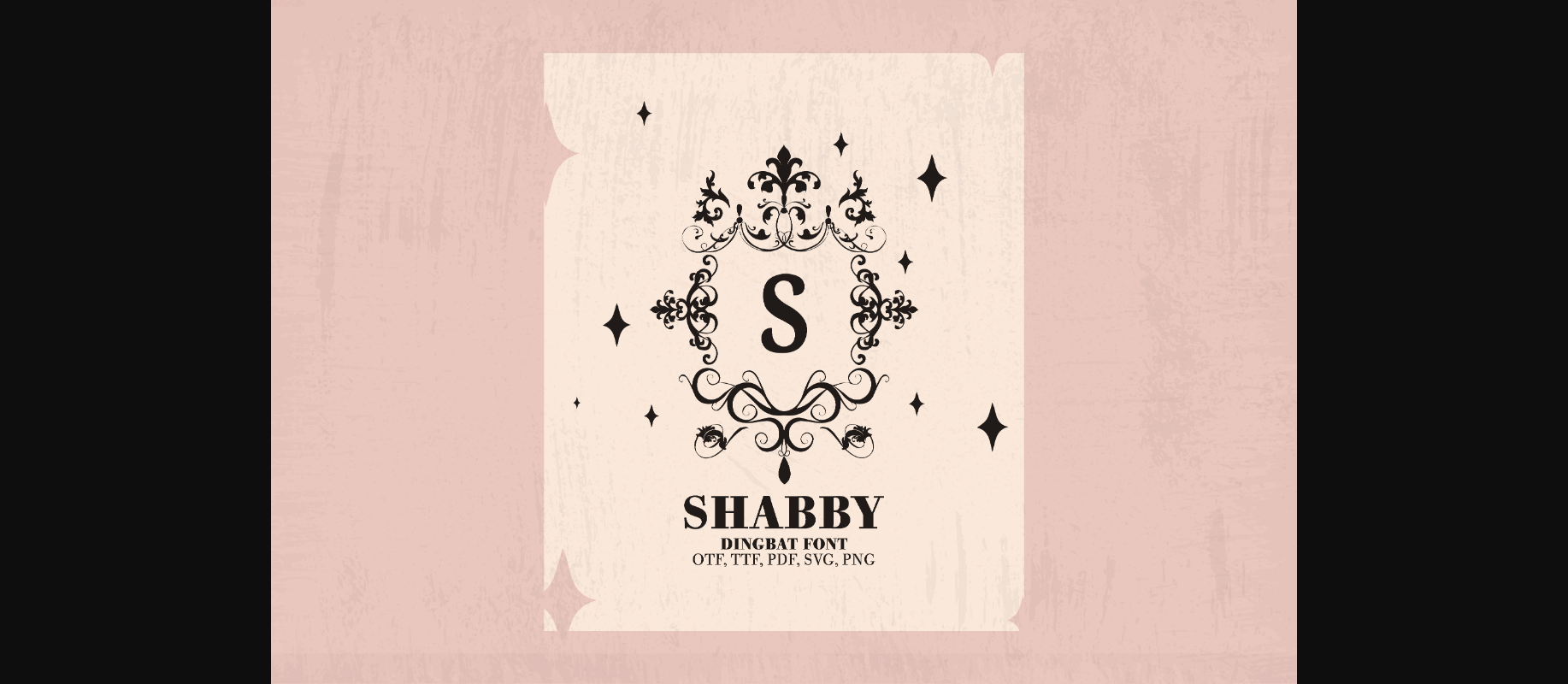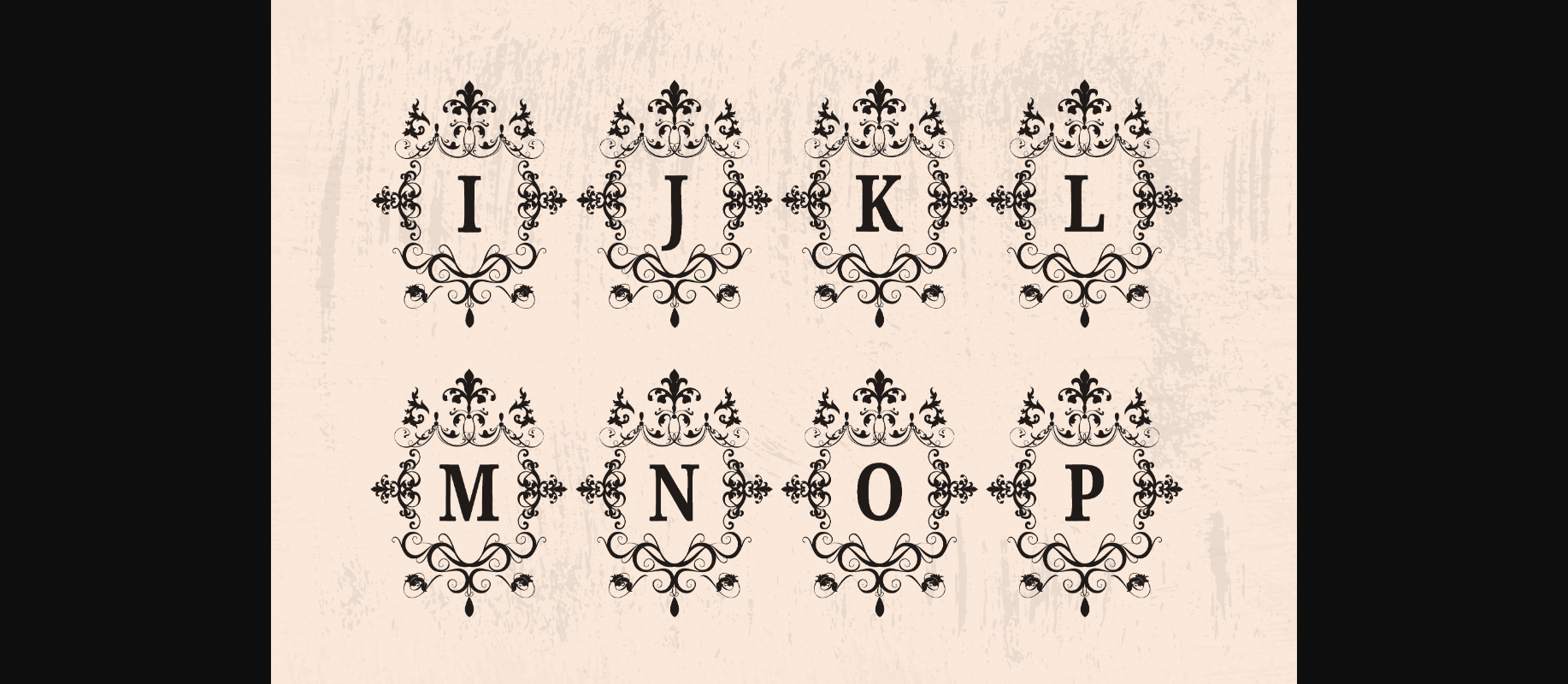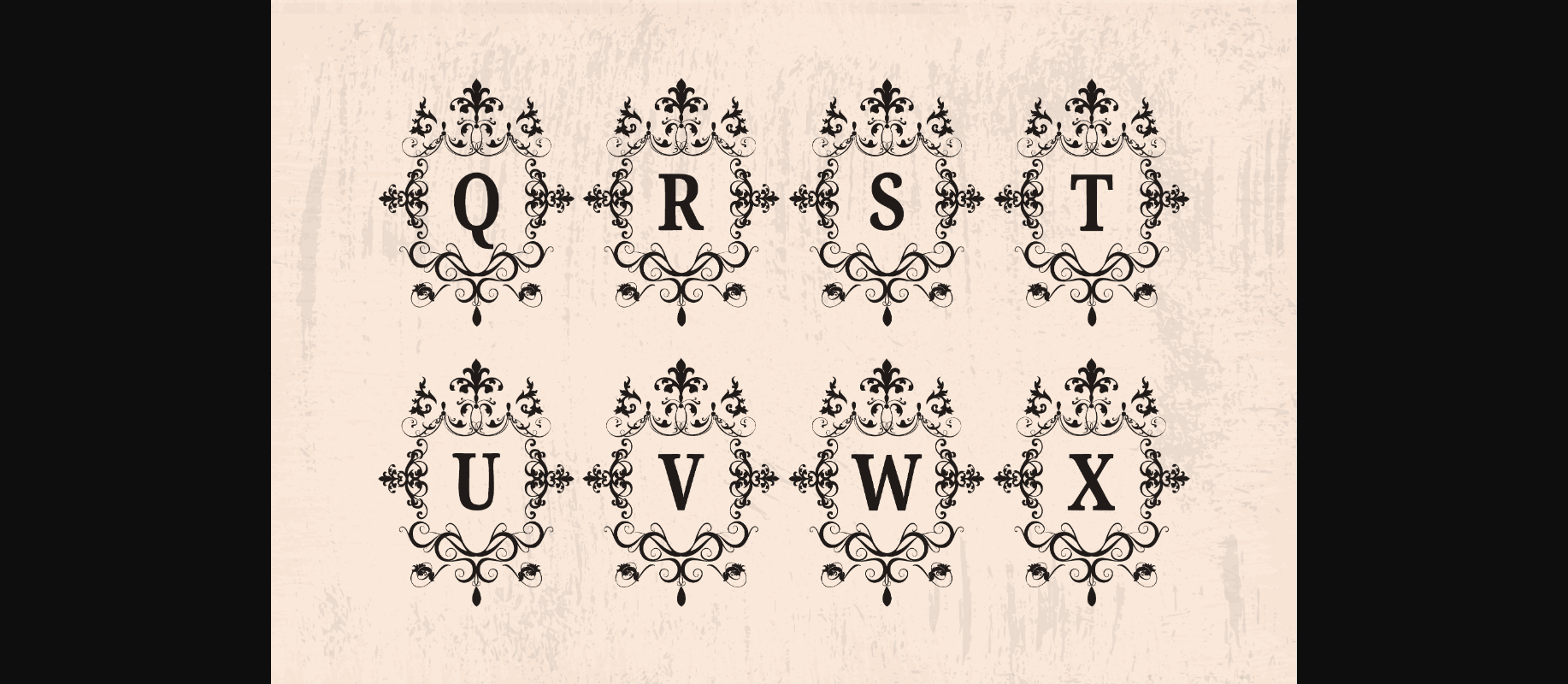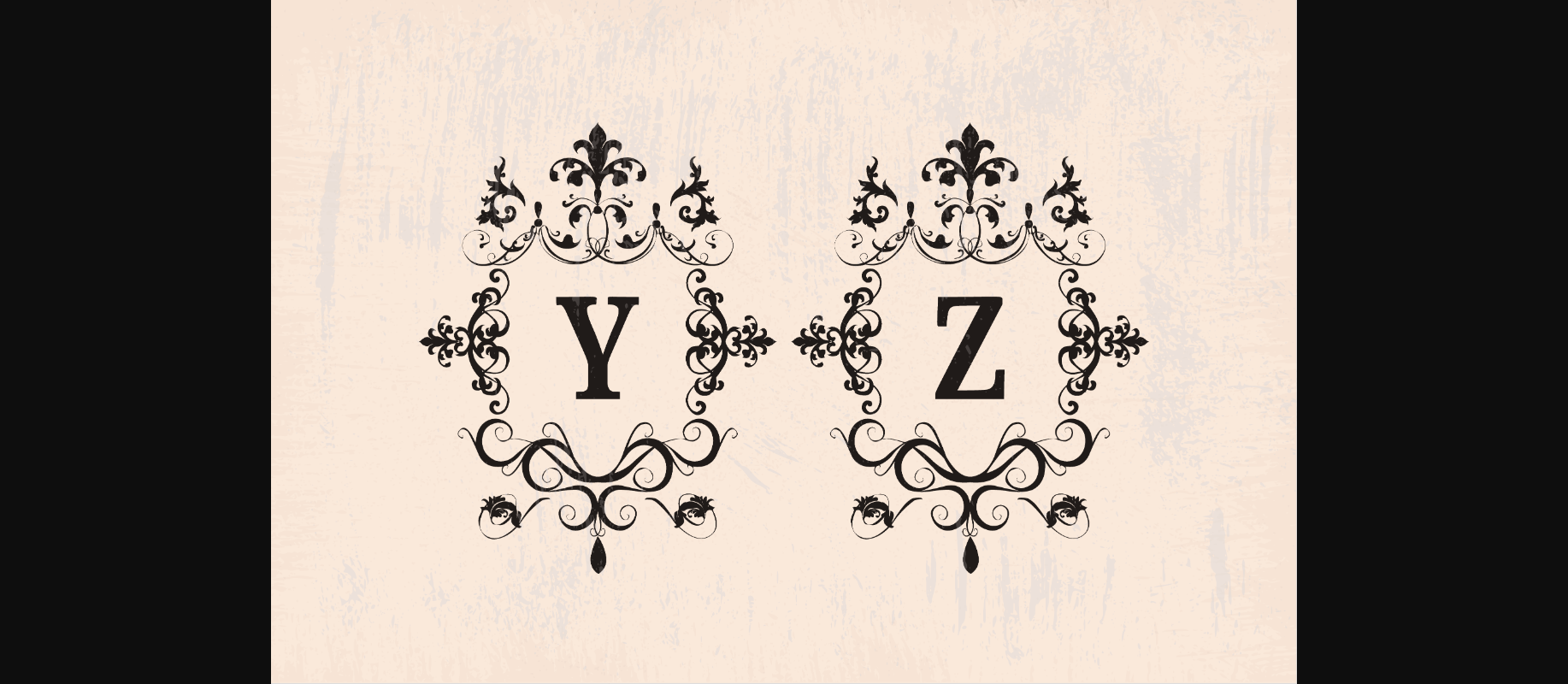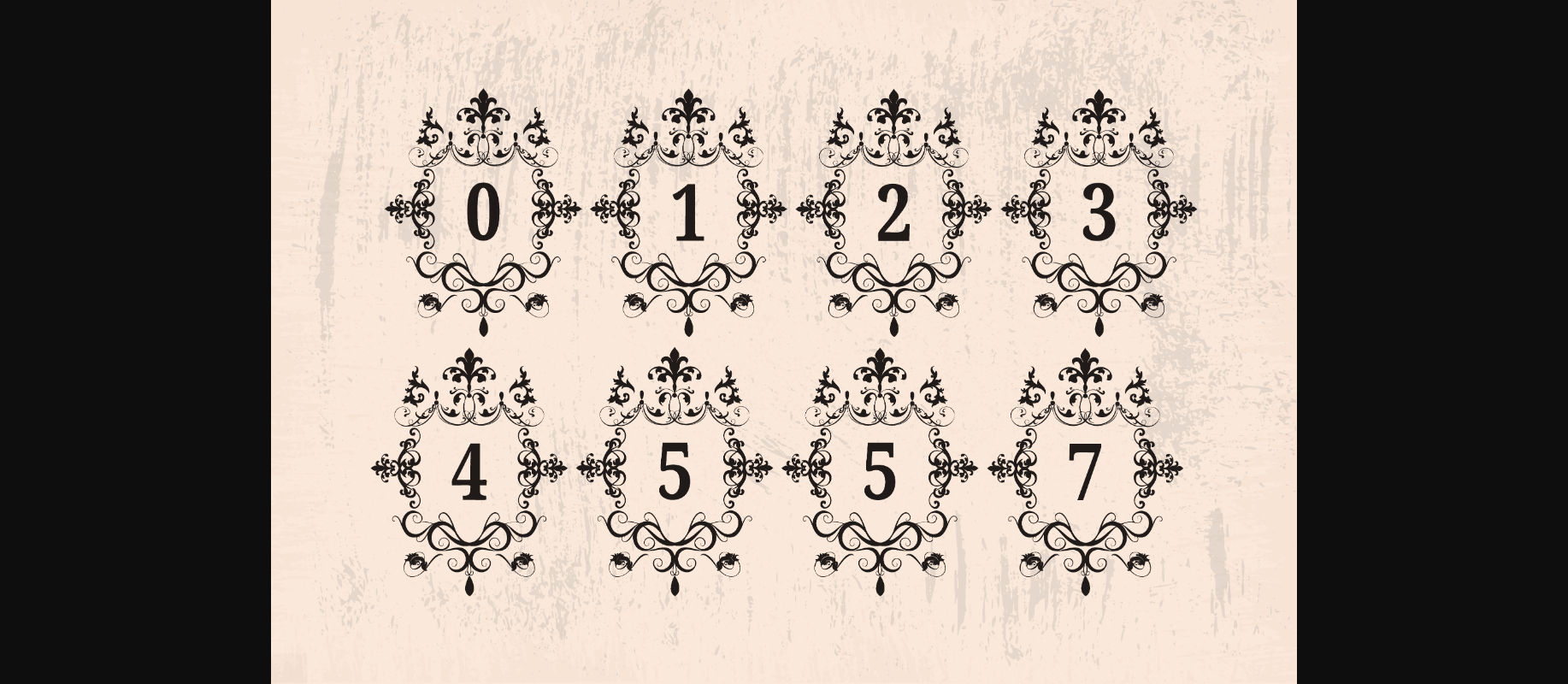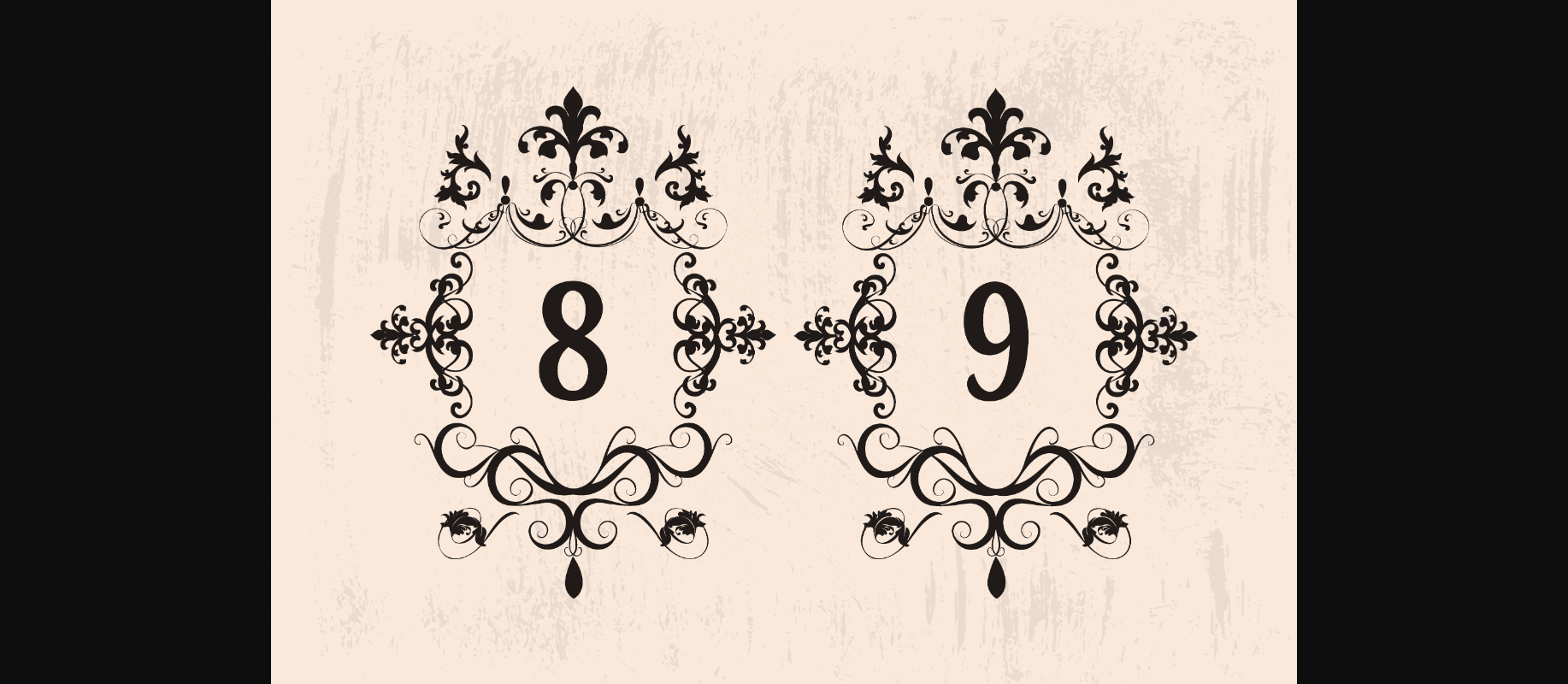
About Shabby Chic Flourishes Monograms Font
Shabby chic flourishes monograms is a beautiful decorative font designed to help you generate multiple dings by typing capital letters and numbers. It was thought to complement shabby contexts, but it can be used with various projects and designs. All you need to do is to determine which colors and textures to apply so you can obtain the desired effect.